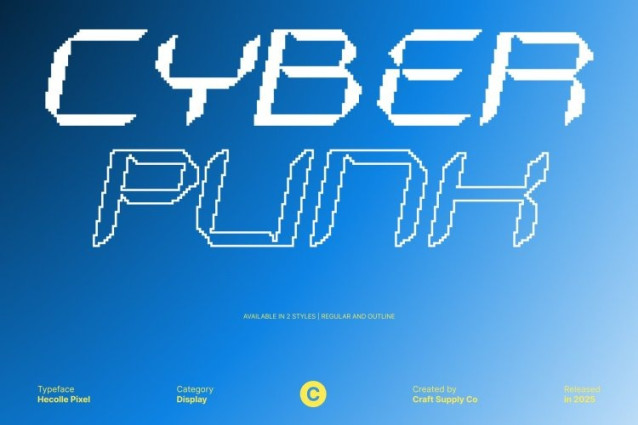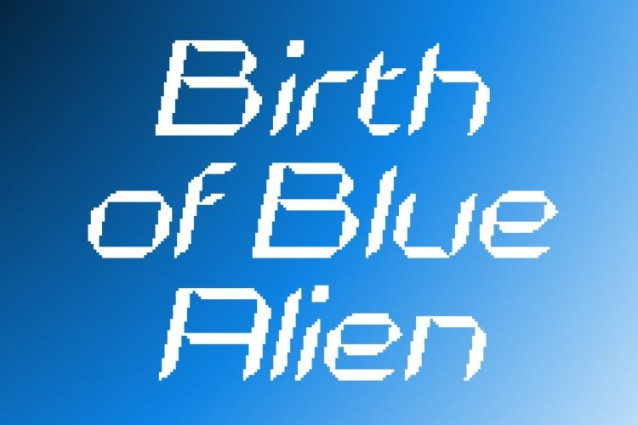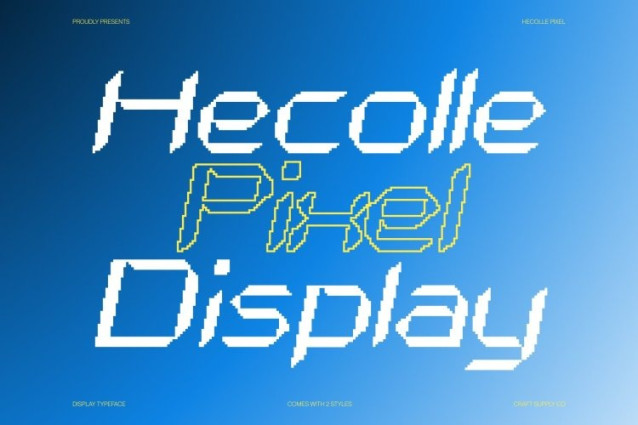
Hecolle Pixel Font
Hecolle Pixel Font Blending techno aesthetics with modernity, this sci-fi display font radiates bold futuristic energy. Its sharp edges, angular structures, and clean digital forms deliver a high-tech impression that feels innovative, dynamic, and ready for the future. Designed to stand out, each character creates a powerful visual impact ideal for cutting-edge creative projects.
Pixel Influence Inspired by Classic Games and Early Computers
Enhanced with pixel details, the font echoes the charm of retro games and early computer graphics. This pixel texture adds a nostalgic touch that contrasts beautifully with its futuristic structure, resulting in a unique blend of old-school digital culture and modern sci-fi style. The combination creates a typeface that feels both advanced and nostalgically iconic.
Perfect for Futuristic Designs, Tech Websites, and Sci-Fi Branding
This font is an excellent choice for techno-themed websites, futuristic interfaces, unique logos, posters, infographics, and branding that aims to highlight early technology with a modern twist. Its strong sci-fi presence ensures your design feels immersive, energetic, and creatively driven.
Digital, and Visually Striking
By merging techno modernity with pixel-driven nostalgia, this font delivers a distinct visual identity that stands out across all digital and print mediums. It’s the ideal typeface for designers seeking a futuristic look infused with the vintage charm of early digital aesthetics.